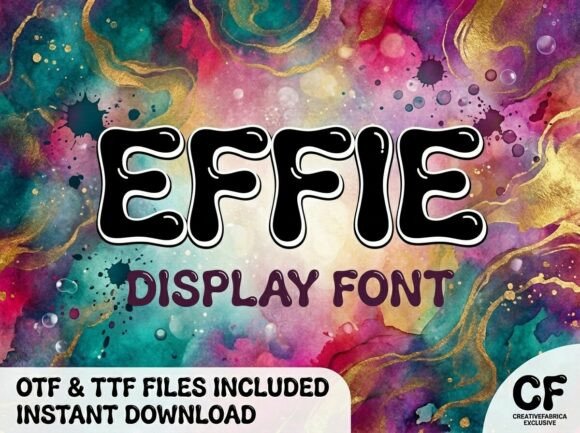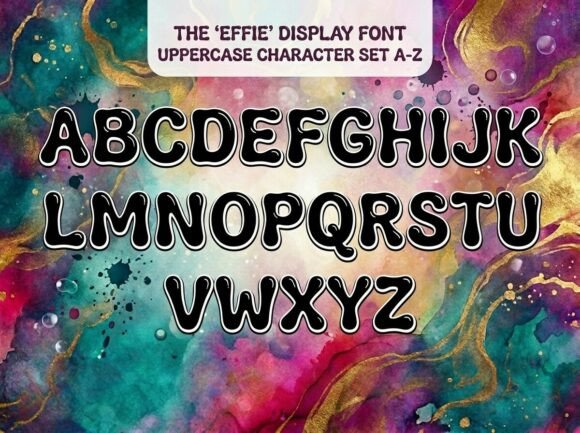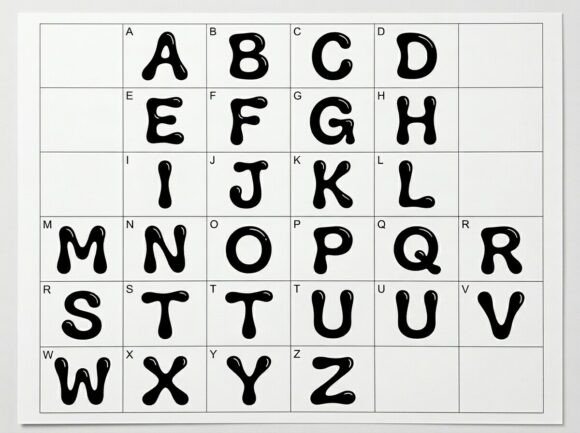
Introduction to Effie Font
As designers, we’ve all been there – staring at a blank canvas, waiting for that spark of inspiration to ignite our creative project. And then, suddenly, the idea hits us. The colors, the textures, the typography – everything comes together in a perfect symphony. For those moments of creative genius, we need a font that can keep up, a font that can make our ideas shine. Enter the Effie Font, a stunning decorative display font designed to be the center of attention.
With its unique artistic elements and strong visual personality, the Effie Font is the perfect design resource for creators who want to break away from the ordinary. Whether you’re working on a bold headline, an artistic logo, or creative packaging, this high-quality font is sure to make a statement. And with its professional and polished finish, you can trust that your design will look its best, even with a transparent background.
But what really sets the Effie Font apart is its value for designers. With its all-caps (uppercase only) design, it’s specifically tailored for high-impact headlines, logos, and decorative initials where every letter is a work of art. And with its high-quality OTF and TTF files, you can be sure that your design will look great on any device, making it a must-have for any designer looking to take their work to the next level.
- Designed with a unique, modern aesthetic for various applications
Honest Review: Effie Font
I recently stumbled upon the Effie Font and was excited to give it a try for my latest creative project. As a designer, I’m always on the lookout for high-quality design resources that can elevate my work.
One of the things that stood out to me about the Effie Font was its high-quality design. The font is clean, modern, and has a unique flair that sets it apart from other fonts in its class. ✨ I loved how versatile it was, and it worked beautifully in a variety of contexts, from body text to headings.
Another feature that I appreciated was the transparent background, which made it easy to use as a design element in my project. It’s always a bonus when a design resource is easy to use and requires minimal tweaking.
Overall, I was really impressed with the Effie Font and would definitely recommend it to other designers. It’s a great addition to any design toolkit, and I’m excited to see how it will continue to evolve.
⚠️ One limitation I encountered was that the font wasn’t as customizable as I would have liked, but this is a minor quibble in an otherwise excellent design resource.